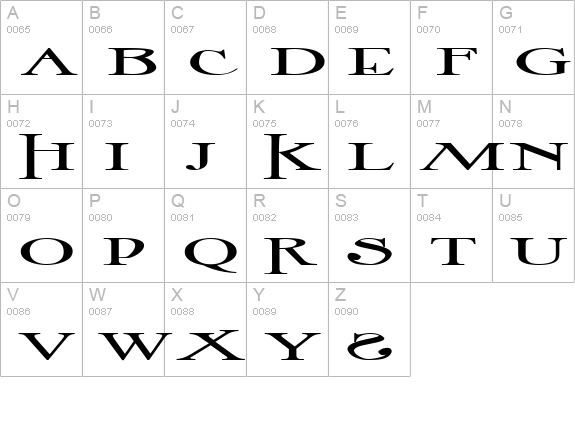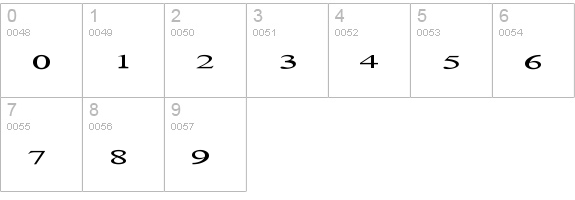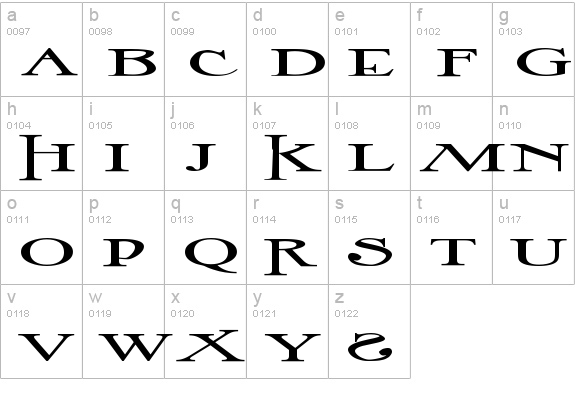
Image Times Font Details
Image Times is a beautifully crafted font that combines the classic elegance of Times New Roman with a modern twist. With its fluid lines and sharp serifs, this font brings a sense of sophistication and professionalism to any project. But what sets Image Times apart from other fonts is its unique feature - it is free! Yes, that's right. You can download this exquisite font for free at FontsMarket.com. Whether you're a designer, a student, or simply someone who appreciates high-quality typography, Image Times offers you the opportunity to enhance your work without breaking the bank. Imagine the possibilities that come with having a font like Image Times at your disposal. From creating eye-catching headlines to designing stunning logos, this font allows you to express your creativity in ways you never thought possible. Its versatility makes it suitable for a wide range of projects, from print materials to digital designs. Not only does Image Times provide exceptional aesthetics, but it is also incredibly user-friendly. Its well-balanced proportions and legible characters make it easy to read, ensuring that your message gets across effortlessly. Whether you're designing a website, a magazine layout, or a business presentation, Image Times will make sure your content stands out and leaves a lasting impression. So why wait? Don't miss out on the opportunity to add this exceptional font to your collection. Download Image Times for free at FontsMarket.com and unlock a world of design possibilities. With its timeless elegance, professionalism, and accessibility, Image Times is the perfect choice for anyone looking to elevate their typographic game. Get your hands on this extraordinary font and let your creativity soar to new heights.